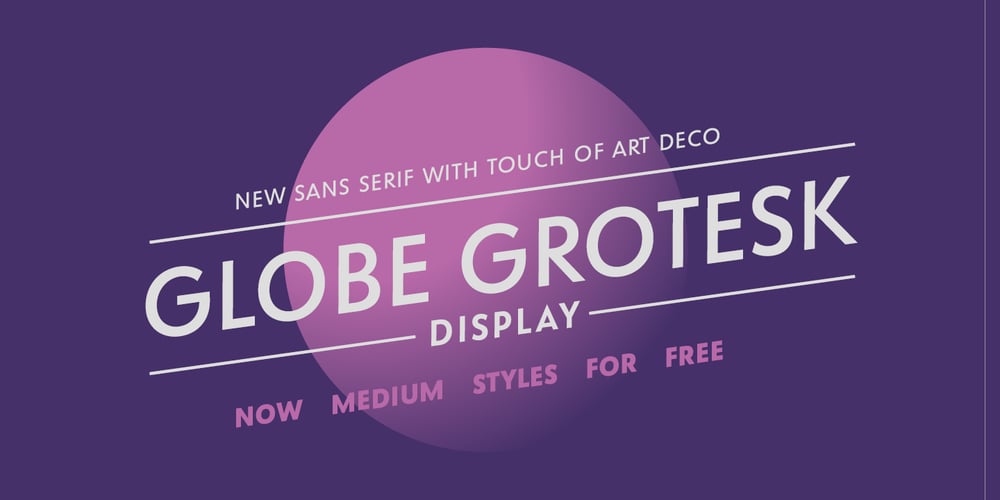
Globe Grotesk Display
Globe Grotesk Display font
Globe Grotesk Display Font Family was designed by Jan Charvát and published by Jan Charvát. Globe Grotesk Display contains 8 styles and family package options. Globe Grotesk is modern art deco inspired sans serif. Its root goes to beginning of last century into Czechslovakia. The design is inspired in Universal Grotesk – font made by unknown designer. There are some really unique details in the font, especially letters a, g, u, E, F, R, & and many more. It primary intended for display usage or rather shorter texts. The original is extended with full latin support, ligatures, small caps, alternates, inktraps, oldstyle figures and many more features necessary for contemporary type design. Also true italics are no doubt in this font.